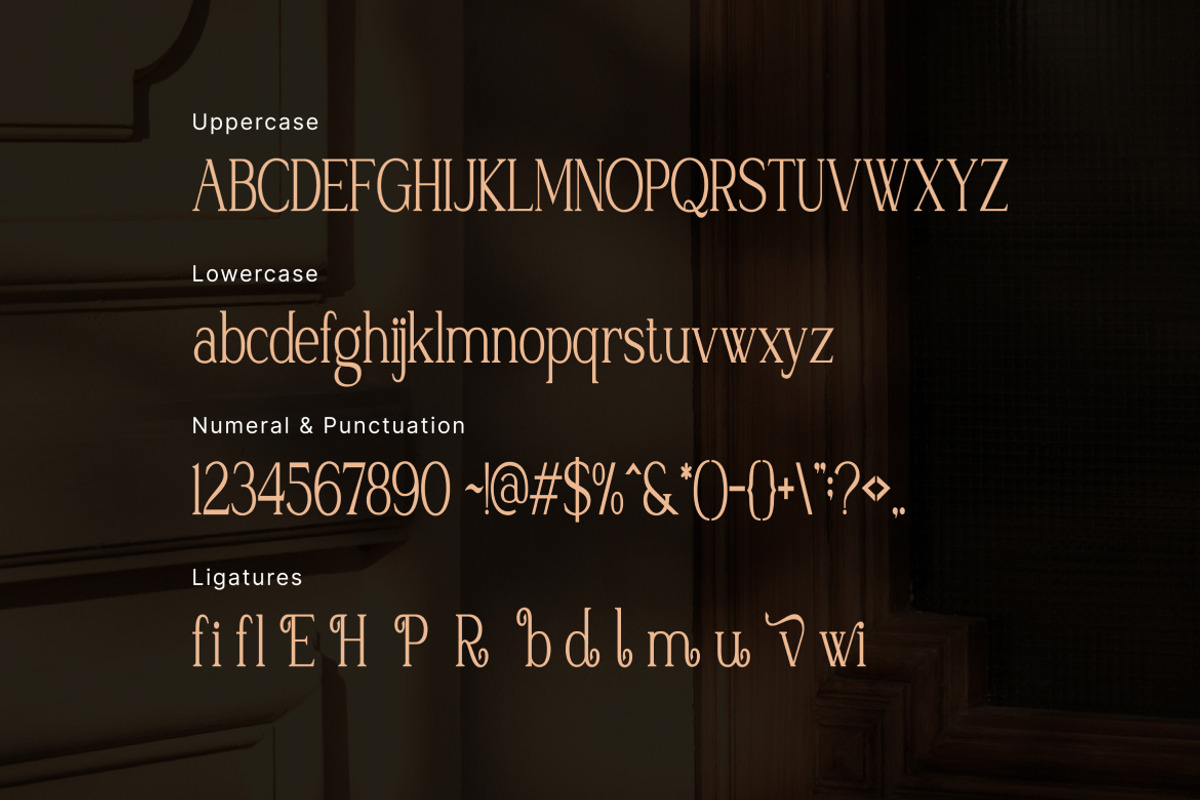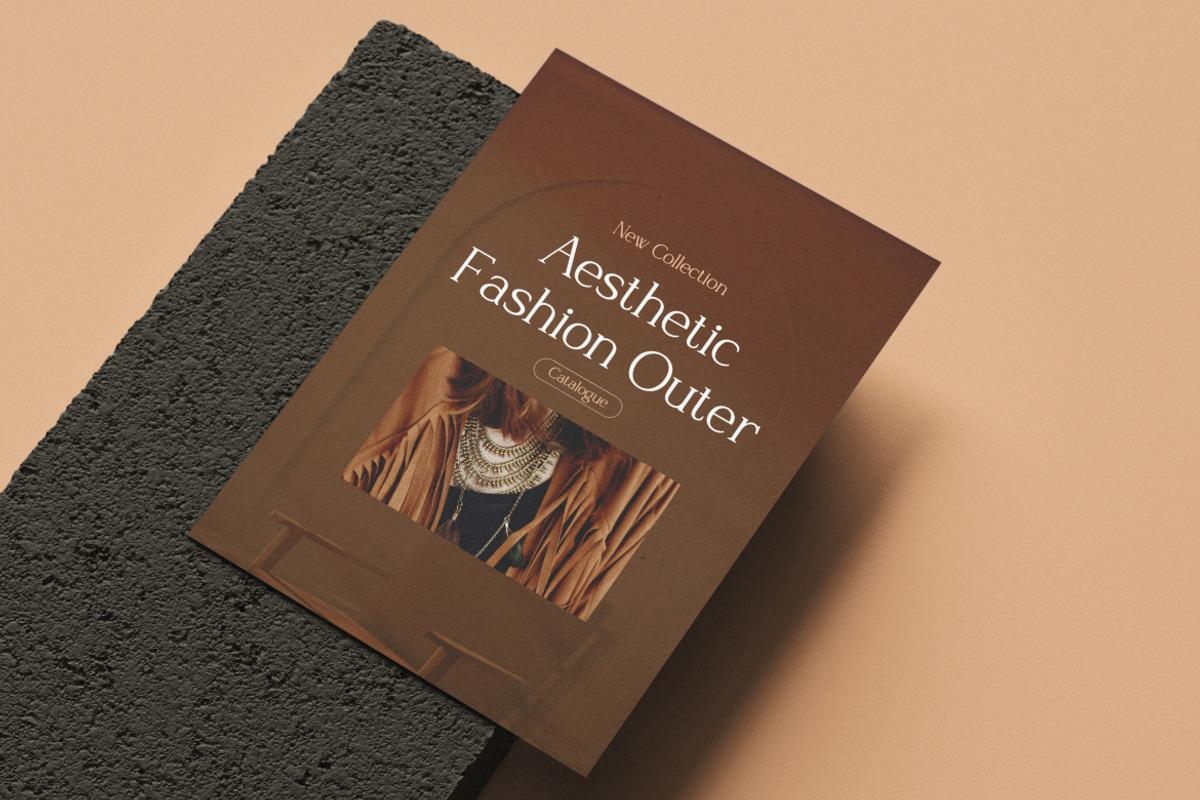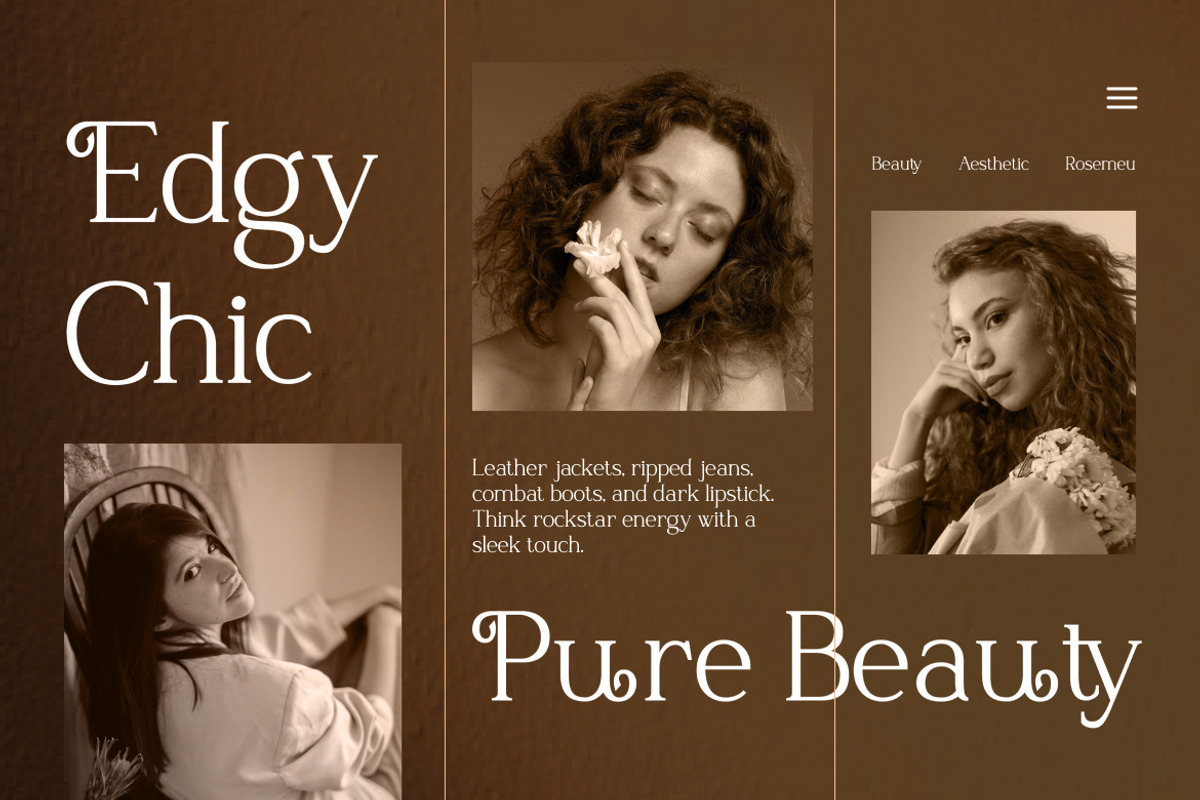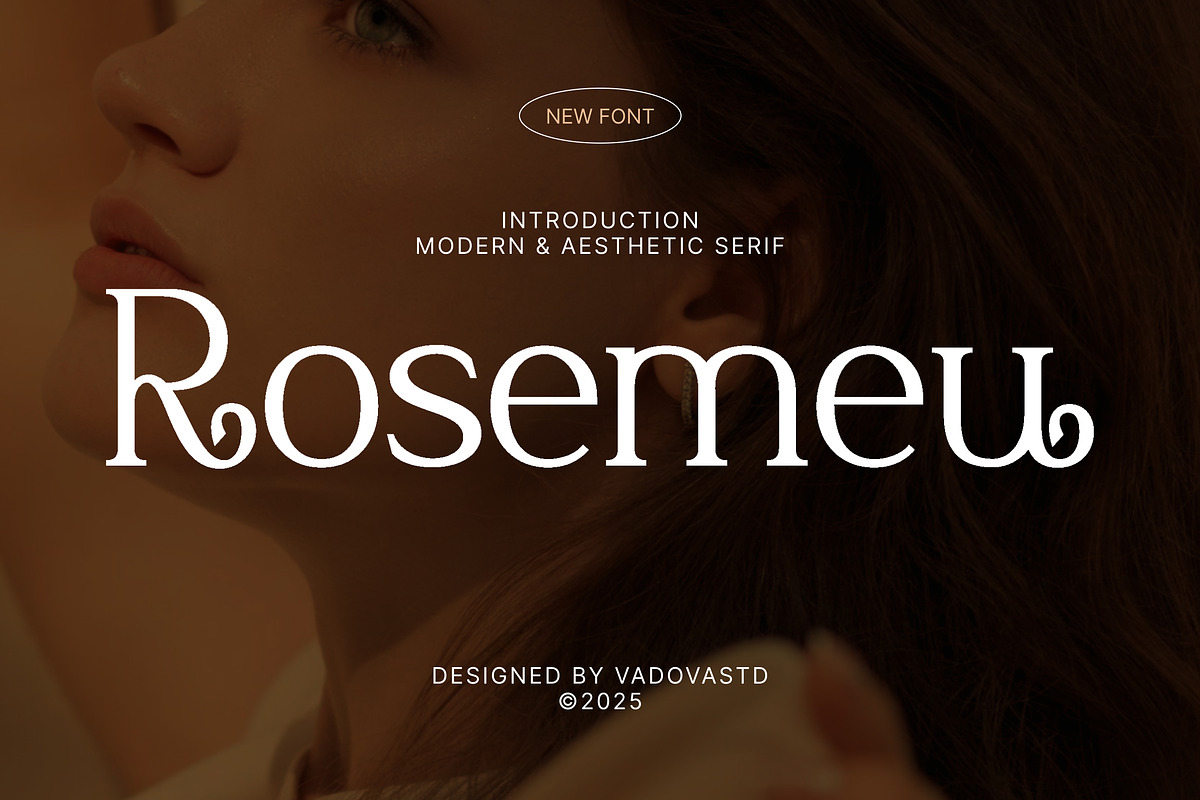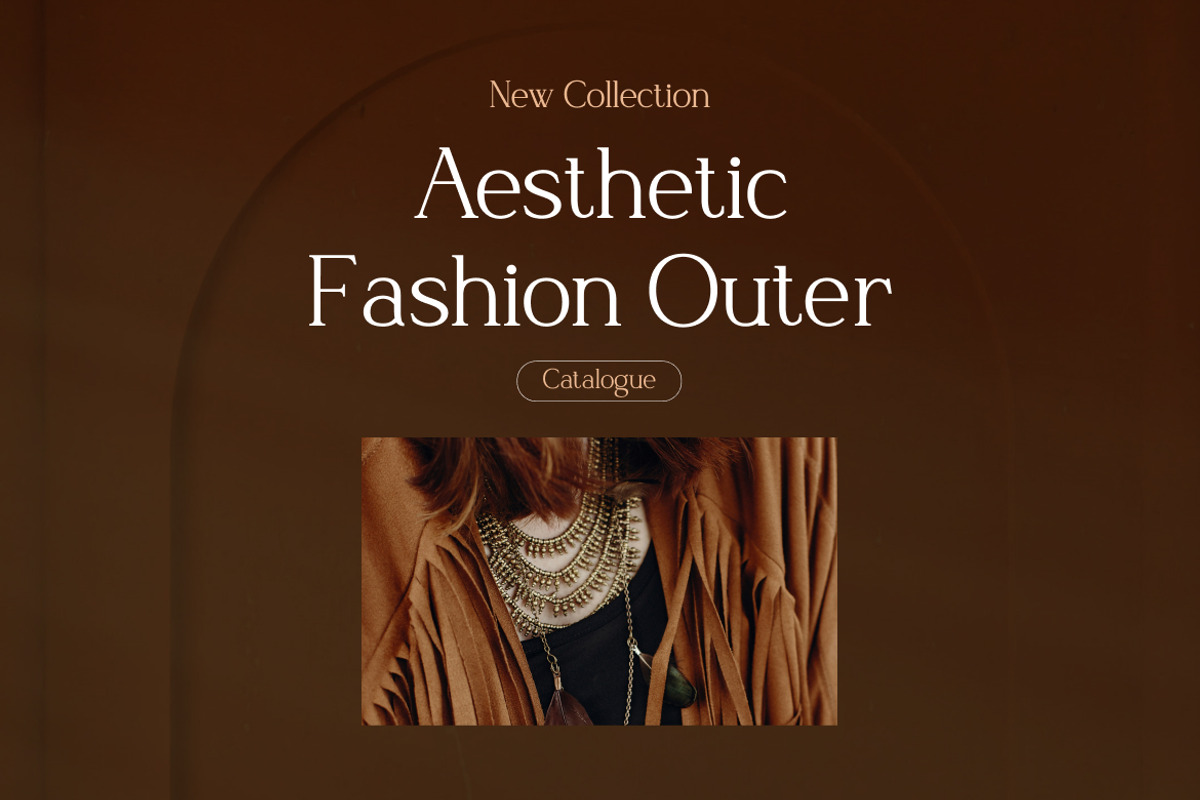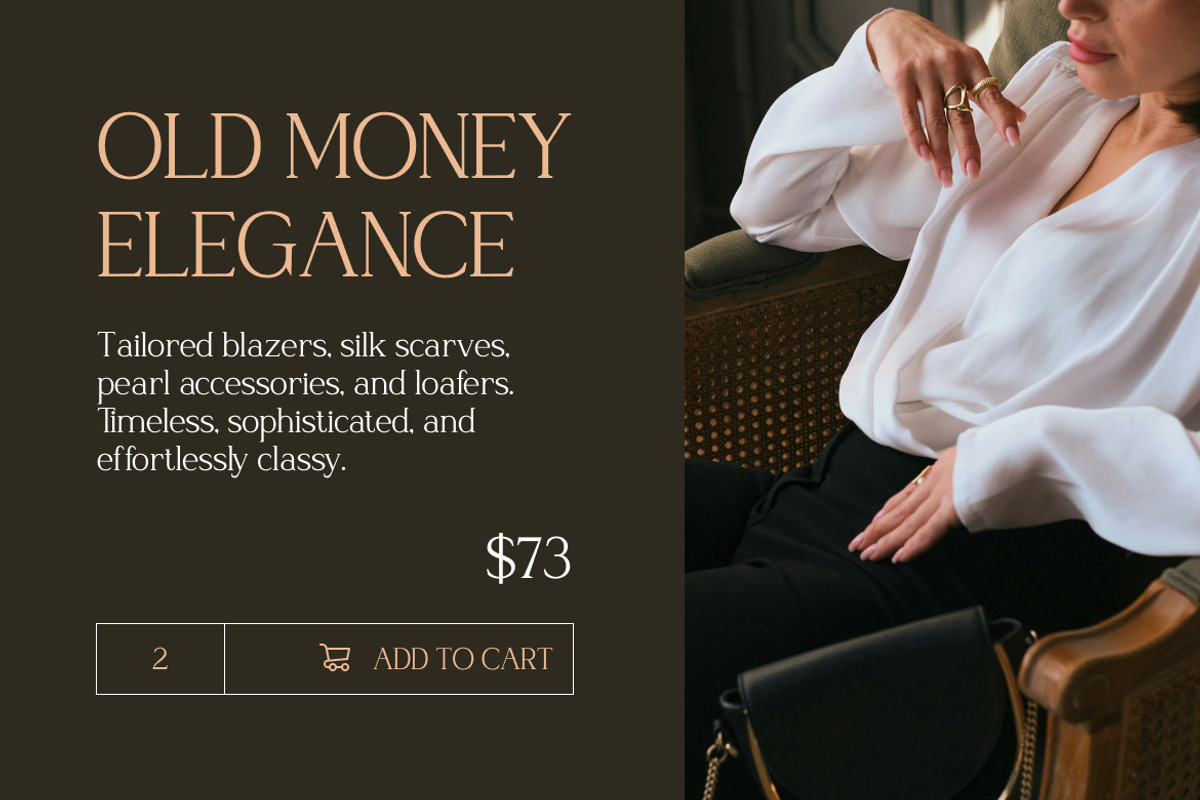
Rosemeu – Modern Aesthetic Serif
Rosemeu is a modern aesthetic serif typeface that blends timeless elegance with a dramatic visual presence. Designed for bold designers seeking sophistication with attitude, this typeface combines refined contrast, stylized terminals, and graceful curvature that capture attention while maintaining class. Every letter feels deliberately sculpted — confident, alluring, and poised — evoking the elegance of vintage charm through a modern lens.
Crafted with care by Vadova Studio, Rosemeu speaks to brands that want to command visual impact without losing subtlety. Its structure is harmoniously balanced, with soft serifs and fluid strokes that echo editorial finesse and timeless craftsmanship. The result is a typeface perfect for fashion branding, beauty packaging, book covers, creative campaigns, and high-end digital content. Whether on a glossy magazine spread or a minimalist brand identity, Rosemeu delivers refinement that lingers.
Each curve and serif detail is meticulously refined to project a romantic yet modern personality. The font holds just the right tension between classic calligraphic influence and modern editorial restraint — making it both expressive and professional. Rosemeu fits beautifully into the worlds of luxury cosmetics, artistic design studios, lifestyle blogs, and contemporary magazines.
For designers who balance elegance with intrigue. Rosemeu transforms typography into a visual statement of sophistication. Its gentle contrasts and confident shapes help any project exude poise, allure, and emotional depth — the essence of true design artistry.
Modern serif font with refined stroke contrast
Elegant terminals and unique curvature for distinct character
Perfect balance between classic form and modern aesthetic
Suited for luxury branding, editorial design, and packaging
Multi-language support and precise kerning
Works harmoniously in high-contrast visual compositions
Ideal for logos, magazine titles, and minimalist layouts
Maintains clarity and charm in both headlines and subtext
Relevance and Use Cases is perfect for luxury fashion branding, perfume packaging, lifestyle editorials, boutique product labels, art magazines, and creative portfolios. It resonates with designers seeking a modern serif with expressive warmth and editorial refinement.
Let Rosemeu bring allure and elegance to your work — a typeface designed for refined storytelling, where modern sophistication meets artistic seduction.